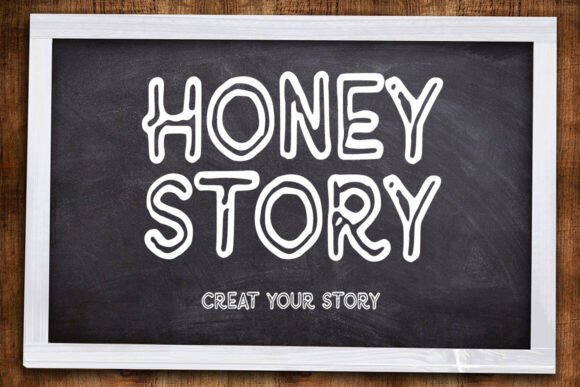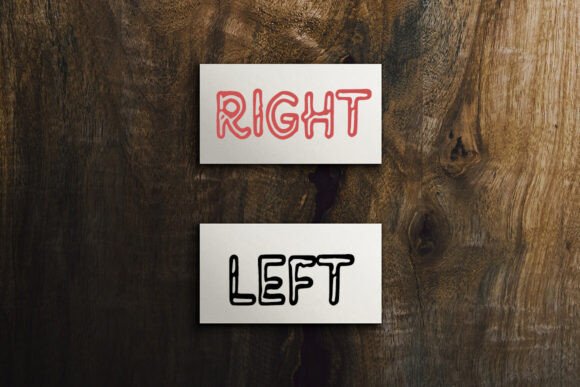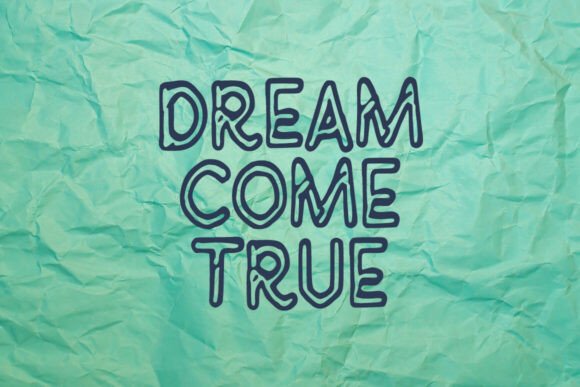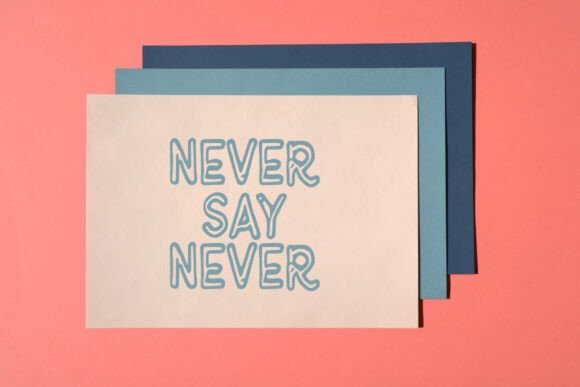
The Sweet Allure of Honey Story Font
Have you ever sat at your desk, staring blankly at a blank canvas, waiting for the perfect font to strike inspiration? It’s a familiar feeling for many designers, and one that can often be the difference between a mediocre design and a masterpiece. For those moments when creativity seems to be stuck in a rut, the Honey Story Font is here to lend a helping hand.
This charming handwritten font is designed to bring a touch of warmth and personality to any design project. Its natural, unique style makes it incredibly versatile, and with the Honey Story Font, the only limit is your imagination. Whether you’re working on a branding project, creating a social media campaign, or designing a wedding invitation, this font is sure to add a sweet and friendly touch.
Honey Story Font Key Features
- Font Family: Honey Story Font is a modern sans-serif font family with 12 styles, including light, regular, bold, and italic.
- Unique Characteristics: Honey Story Font features a unique blend of geometric and organic shapes, creating a friendly and approachable feel.
- Character Set: The font includes a comprehensive character set, including Latin, Greek, and Cyrillic scripts, as well as a range of punctuation and symbol glyphs.
Honey Story Font Review
I recently had the chance to work with the Honey Story font, and I must say it’s a unique and charming addition to any design project. Here’s my honest review:
The Honey Story font is incredibly versatile and can be used for both body text and headings, making it a great all-around choice.
The font’s playful, handwritten feel adds a touch of warmth and personality to any design.
The font is well-suited for a variety of industries, from food and beverage to lifestyle and wellness.
The font may not be suitable for formal or professional projects where a more traditional, serif font is required.
The font’s handwritten feel can sometimes make it difficult to read in smaller sizes or at a distance.
The font’s unique character set may not include all the glyphs and characters you need for certain languages or special cases.
Overall, I think the Honey Story font is a great choice for designers looking to add some personality and whimsy to their projects. While it may have some limitations, its unique charm and versatility make it a valuable addition to any design toolkit.
Getting the Most Out of Honey Story Font
To get the most out of Honey Story Font, use it in conjunction with other design elements to create a cohesive and visually appealing design. Experiment with different font sizes, colors, and styles to create a unique look.
Honey Story Font is a versatile font that can be used in a variety of design applications, including:
- Home decor and furniture design Alternatives to Honey Story Font for Designers
- Use the font to create a handwritten label with the honey’s name and other details.
- Experiment with different font sizes and styles to create a visually appealing design.
- Pair the Honey Story Font with a distressed texture to give it a vintage look.
- Combine with a watercolor background to add a touch of whimsy.
- Use a custom illustration of a honey bee or a honeycomb to add visual interest.
- Use the font to create a beautiful, handwritten-style wedding invitation.
- Experiment with different font sizes and styles to create a visually appealing design.
- Pair the Honey Story Font with a watercolor background to add a touch of whimsy.
- Combine with a custom illustration of a honey bee or a honeycomb to add visual interest.
Unique Designs with Honey Story Font
Project 1: Vintage Honey Label
Create a charming vintage label design for your homemade honey using the Honey Story Font. This design will evoke a sense of nostalgia and add a personal touch to your honey packaging.
Project 2: Honey-Themed Wedding Stationery
Create a beautiful and unique wedding stationery design using the Honey Story Font. This design will add a touch of romance and elegance to your wedding invitations and other stationery.